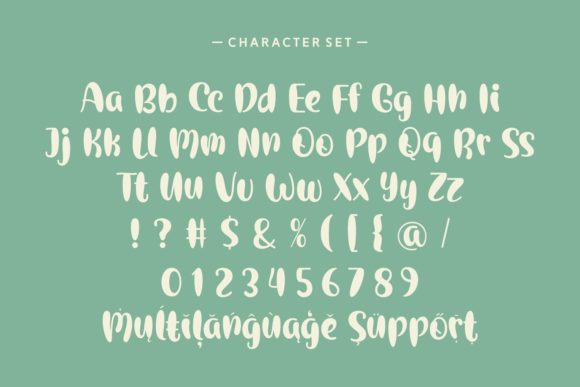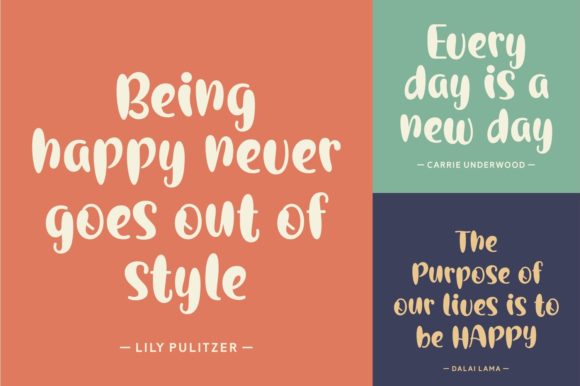
October Bright Font
db-ku.com - Script & Handwritten -- October Bright is a playful and whimsical handwritten font. Whether you’re using it for crafts, digital design, presentations, or making greeting cards, this font has the potential to become your favorite go-to font, no matter the occasion!